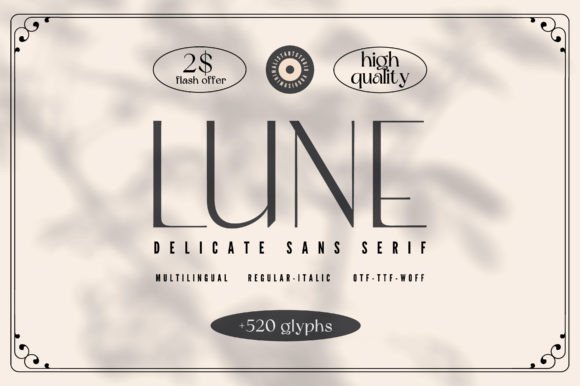
Are you looking for the perfect font to give your design projects a chic and sophisticated touch? Look no further than Lune Font! Created by Minimalistartstudio, this sans-serif font is the ideal choice for those seeking a font style for website design that exudes minimalism and elegance.
Lune's thin strokes and clean lines make it perfect for a wide range of design projects, from logos and branding to editorial and web design. This font family comes with both regular and italic weights, giving you the flexibility to create stunning typography that suits your needs. Lune contains a comprehensive set of 520 glyphs, including uppercase and lowercase letters, numbers, symbols, and punctuation marks.
With Lune, you can take your design projects to the next level. Its chic and sophisticated style is perfect for a high-end fashion brand or a modern tech company, adding a touch of elegance and class to your work.
This font is not just about looks. It is designed to make a statement and convey emotions, with its sleek lines and minimalistic features. When your audience sees your designs with Lune, they will feel captivated, engaged, and ready to act.